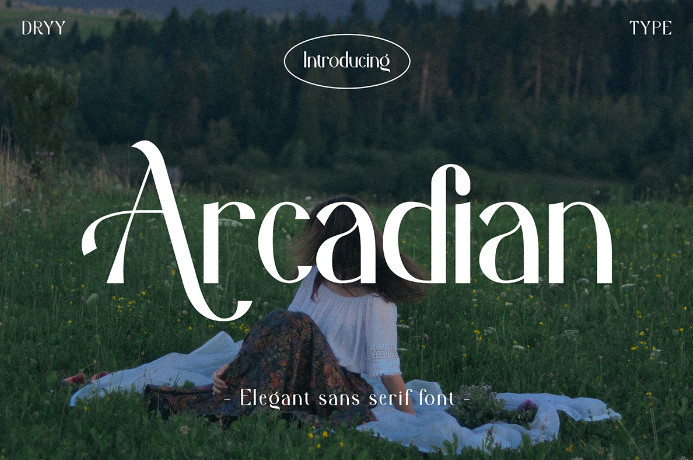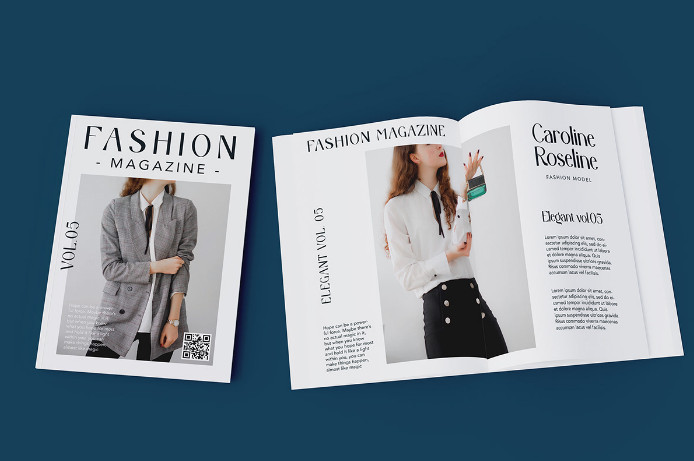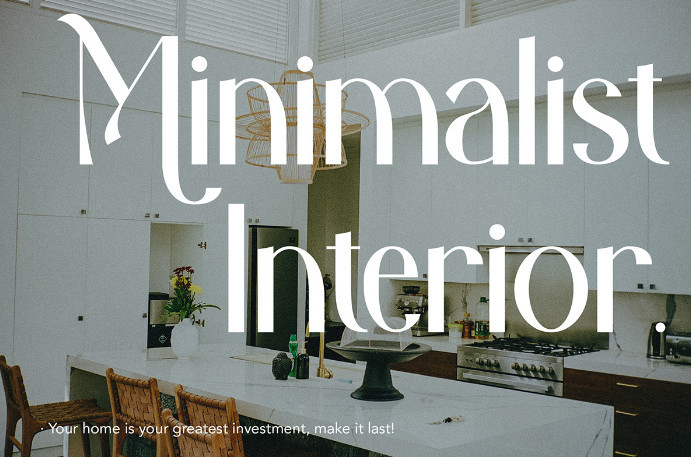
Acardian Font
How outstanding! Acardian Sans Serif Font a elegant sans serif font that has a unique character and is elegant to use.
Arcadian is a display type font that is currently a trend. This font I’ve created is incredibly versatile, and fits well with a variety of designs, elevating them to the highest level. Add this font to your favorite creative ideas and see how it turns out!